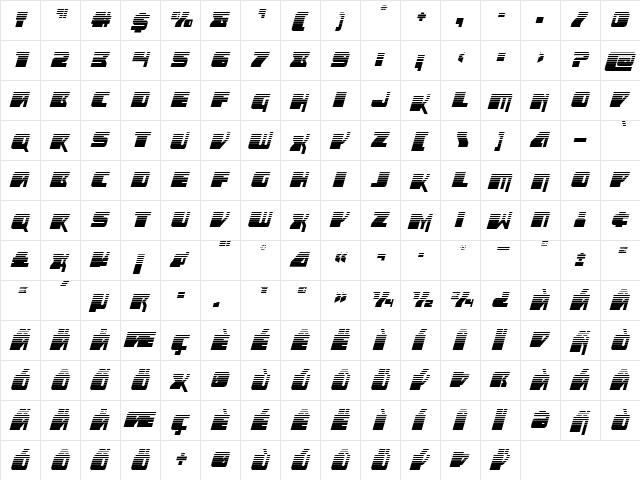
Space Runner Halftone Italic Regular
Design Context for Space Runner Halftone Italic Typeface
Space Runner Halftone Italic is a composed and adaptable typeface that performs quietly and consistently across a wide range of design contexts. Its italic angle brings a sense of urgency and motion to the letterforms.
Pro Tip: Try Space Runner Halftone Italic for annotation and caption copy alongside an upright companion — the contrast in angle creates a dynamic but ordered typographic system.